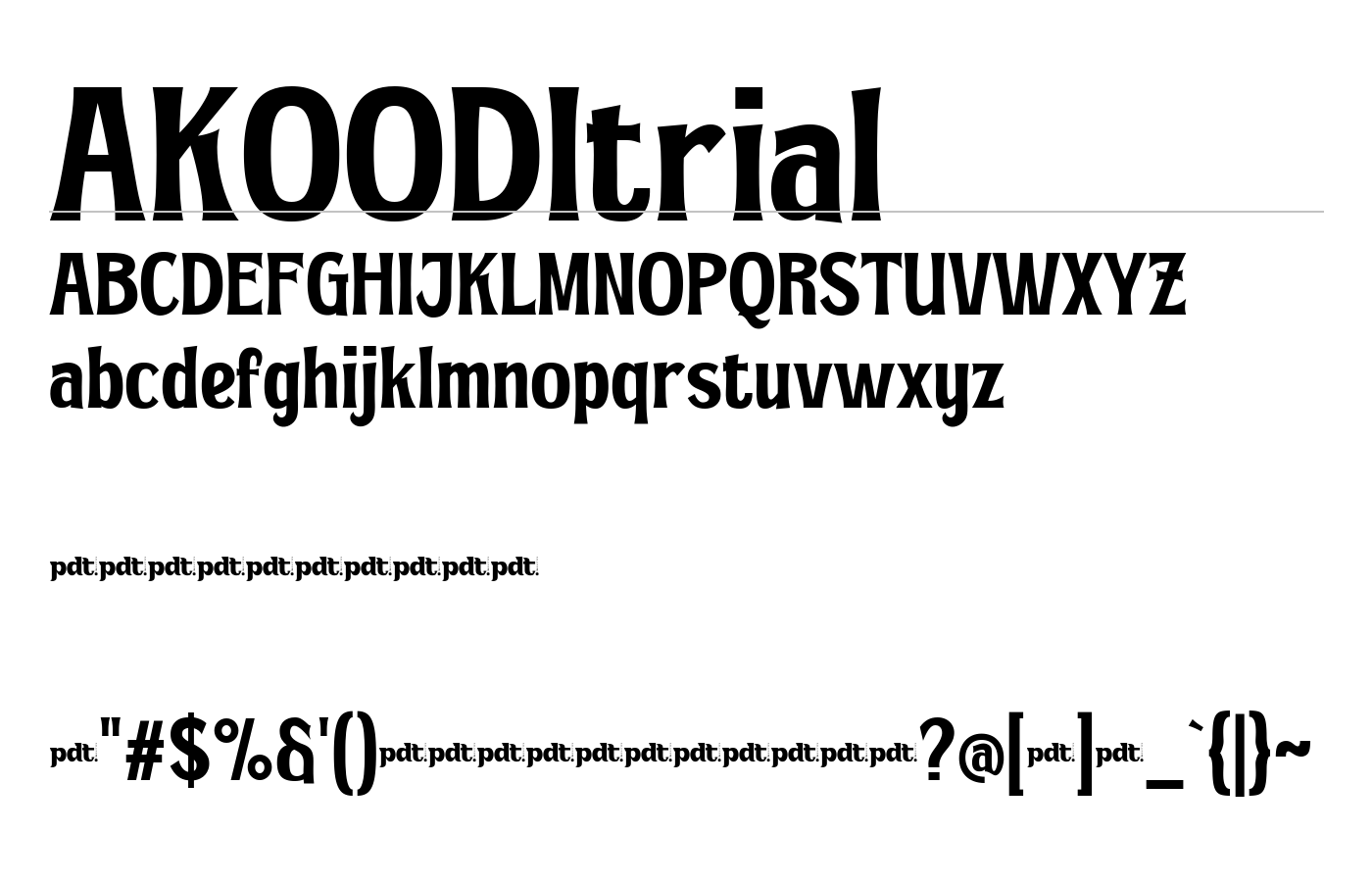
AKOODItrial is a bold, condensed serif font with a distinct playful yet strong character. Its high contrast strokes and slightly irregular, quirky shapes give it a dynamic, vintage-inspired feel that works well for eye-catching headlines and creative branding. This typeface is ideal for packaging, posters, and editorial use where a unique, confident personality is desired.
AKOODItrial Font
About AKOODItrial Font